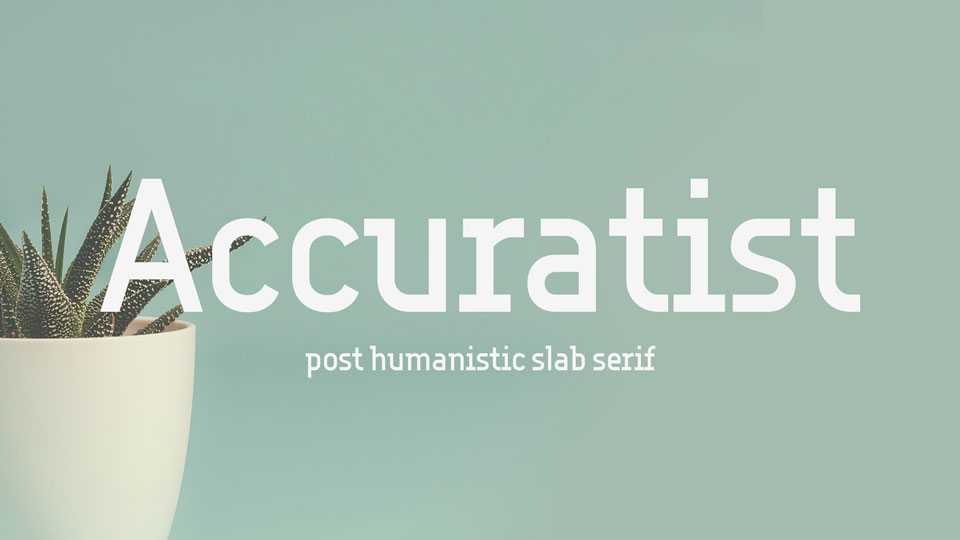
Download Accuratist font, a post humanistic slab serif. Great for posters, headlines, logotype and branding, covers and other creative typographic projects.
Designer: Ivan Gladkikh